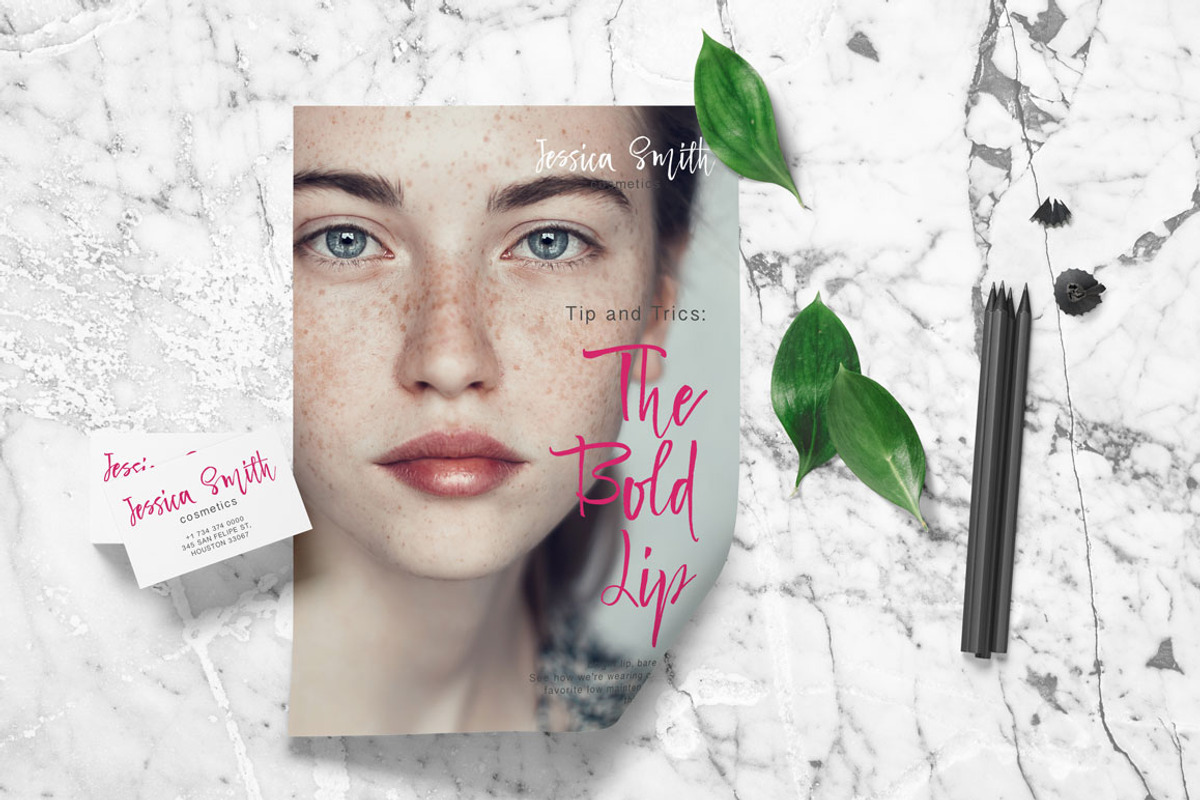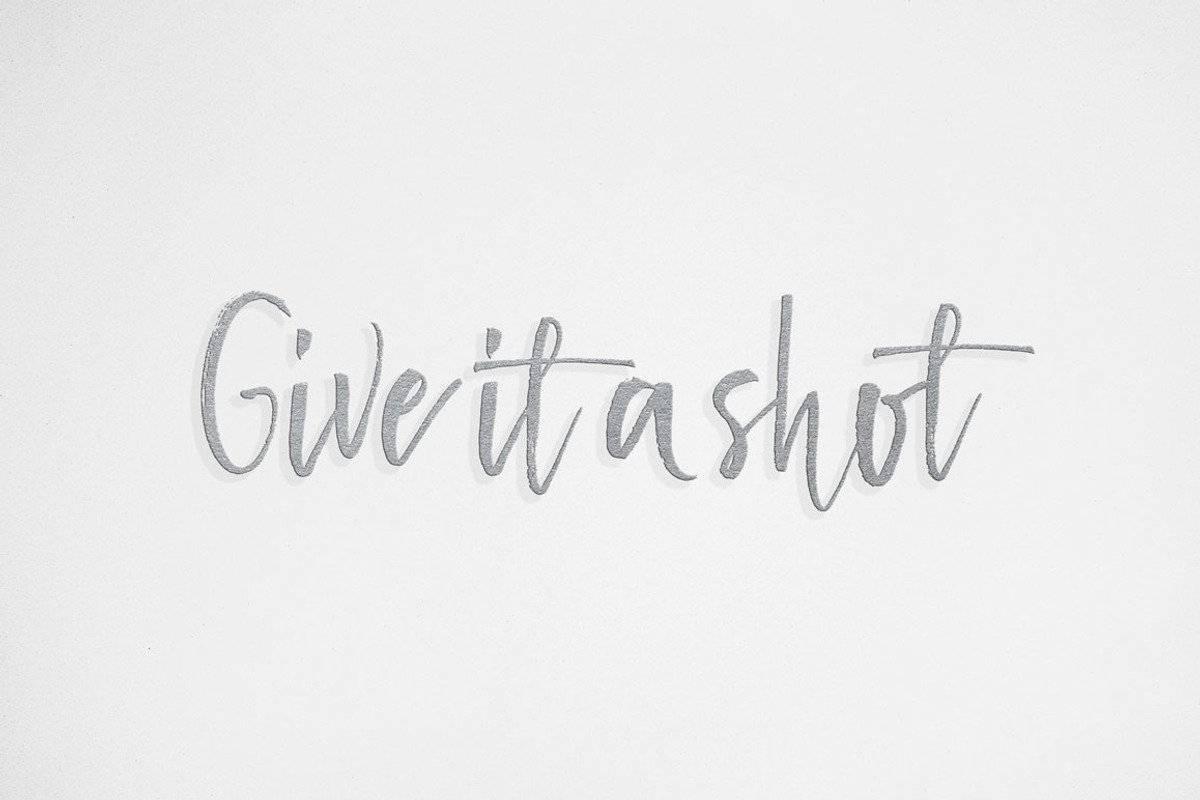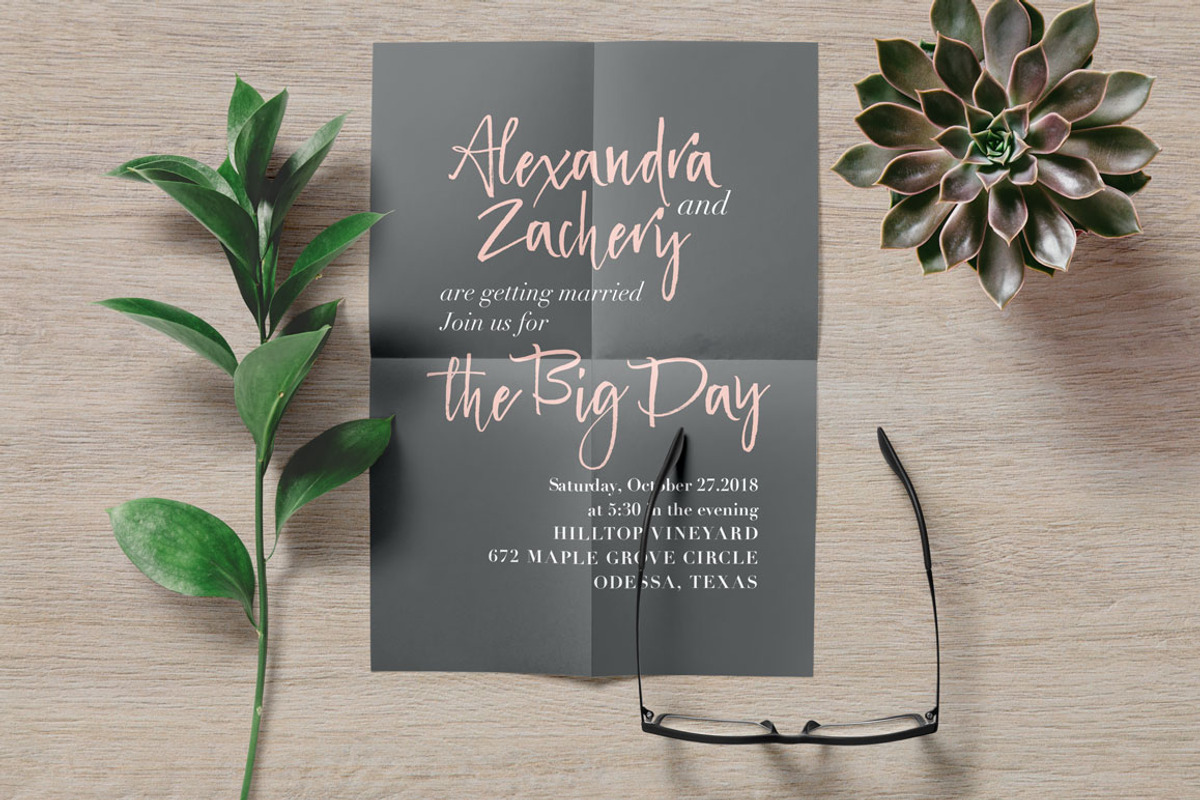
Delicious Brush Font
Delicious Brush Font by Vera Holera is a font selected for branding, posters, packaging, typography.
- It has some alternative glyphs and ligatures.
Why Delicious Brush Font is worth a look
Delicious Brush Font by Vera Holera fits naturally into Branding, posters, packaging, typography.